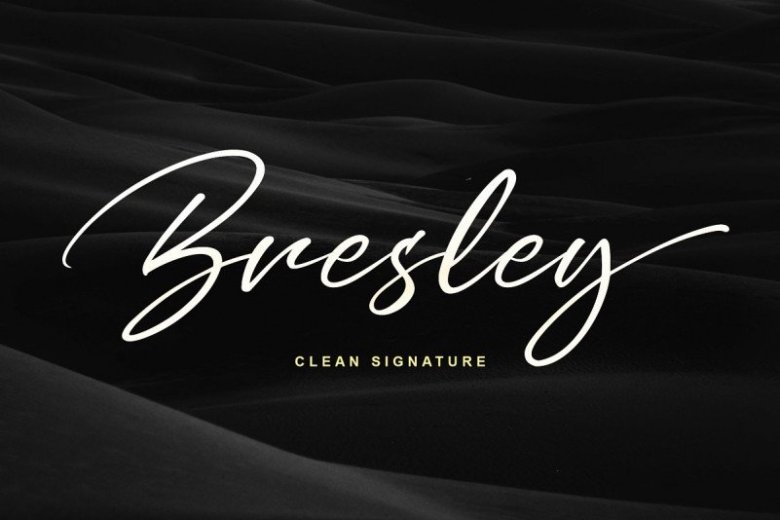
Bresley Clean Signature Font
This is handwritten script based on the expression of real handwriting. It’s smart and in line with your wishes! Say hello to the Bresley Font! It is designed and shared by Blankids Studio. Bresley Clean Signature Font is a new clean signatures script. Bresley came with open type features such contextual alternates, stylistic alternates, ligature, good for signature logo, wedding invitation, romantic quote, logotype, poster, social media kit, book cover, tshirt design, packaging and any more.